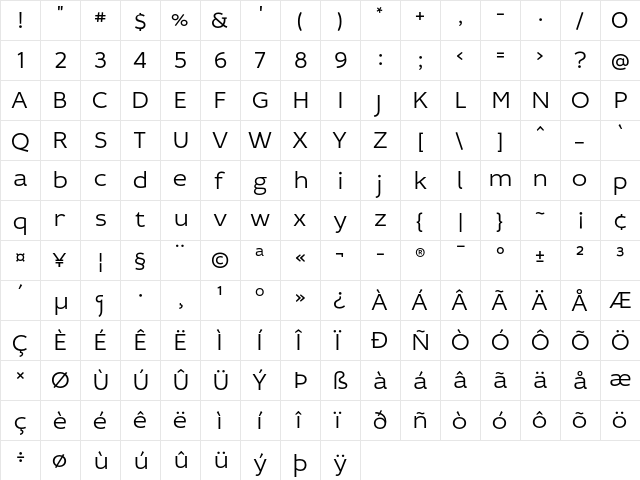
Idealist Sans Light
Design Context for Idealist Sans Typeface
Idealist Sans offers clean, dependable letterforms without strong stylistic allegiance, making it a practical choice for designers who need flexibility. Its slender proportions lend an understated elegance to any composition.